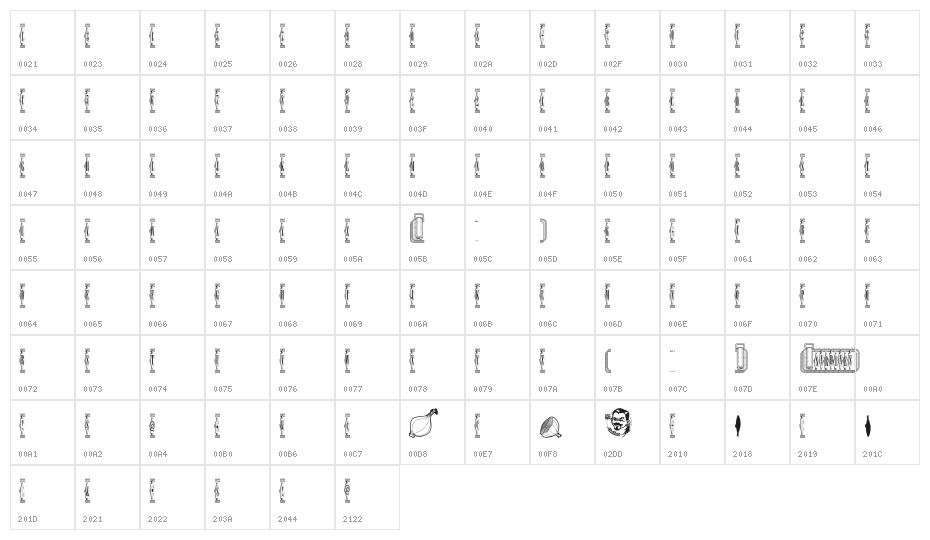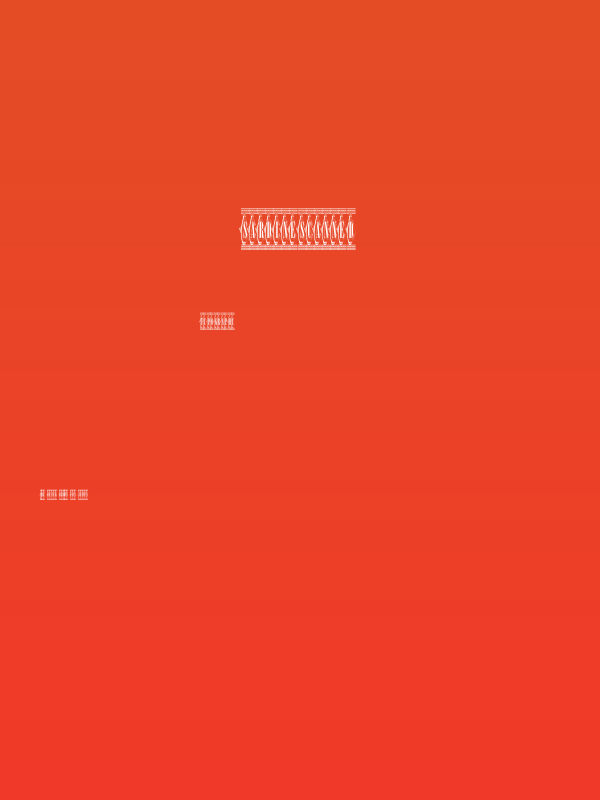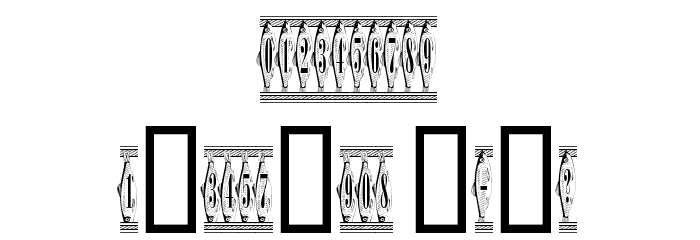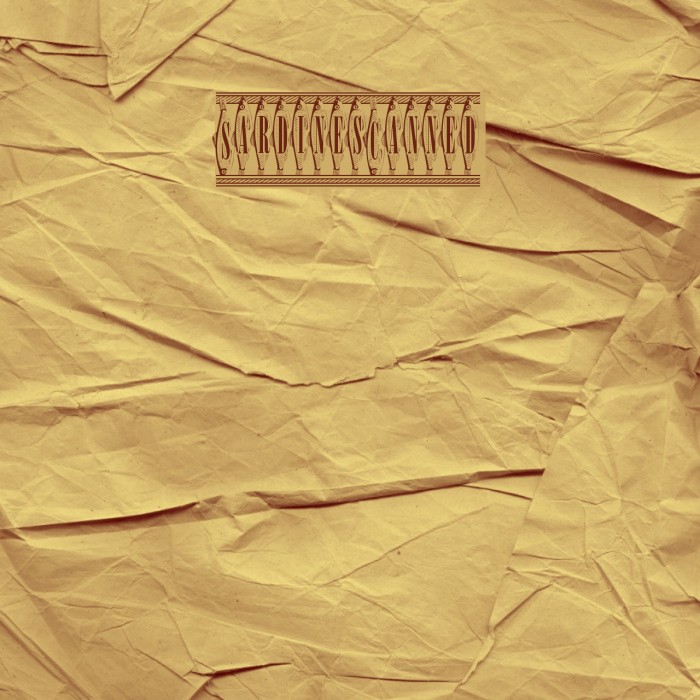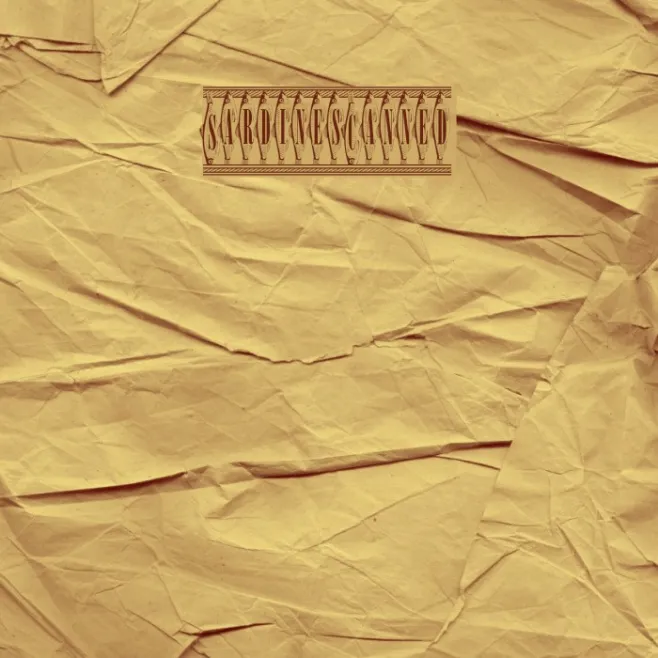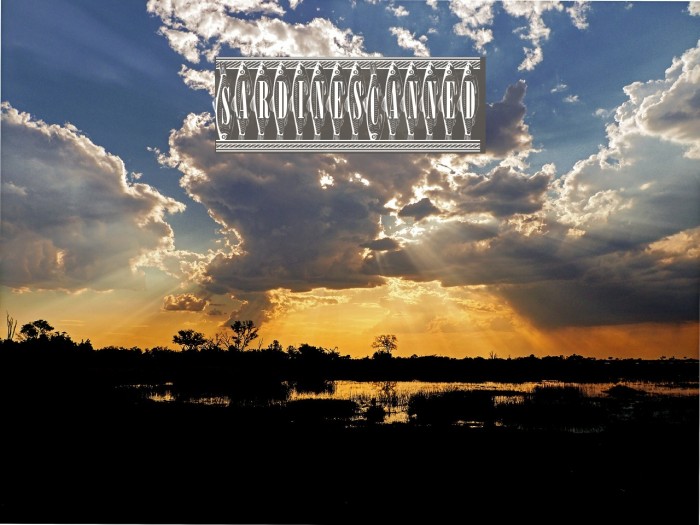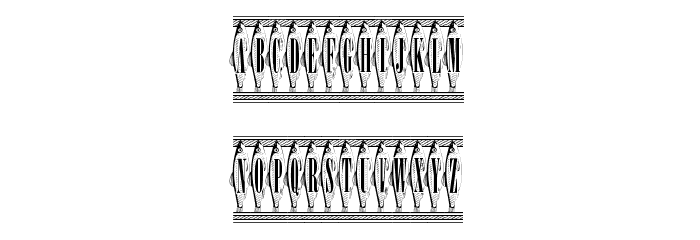
SardinesCanned Font
SardinesCanned Description
This font exhibits a highly decorative and intricate design, characterized by its ornate and elaborate detailing. Each character is encased in a unique, stylized frame that resembles a vintage label or emblem, adding a sense of sophistication and elegance. The letters are bold and prominent, with sharp, angular edges that give them a distinctive and memorable appearance. The overall aesthetic is reminiscent of art deco or vintage packaging, making it ideal for projects that require a touch of nostalgia or classic charm. The numbers and special characters follow the same elaborate style, ensuring consistency across all elements.
| Overall Style | Vintage |
| Use Case | Logos, Packaging, Posters |
| Proposed Projects | Ideal for vintage-themed designs, packaging, posters, and branding that require a classic and sophisticated look. |